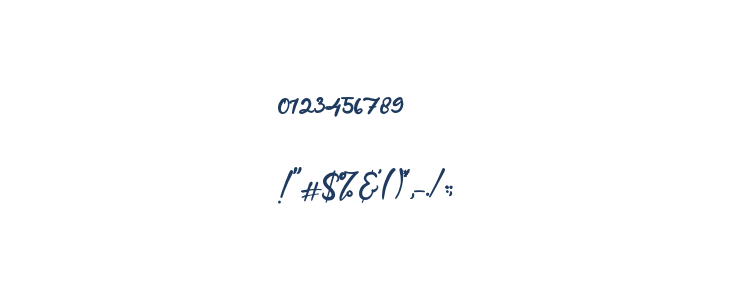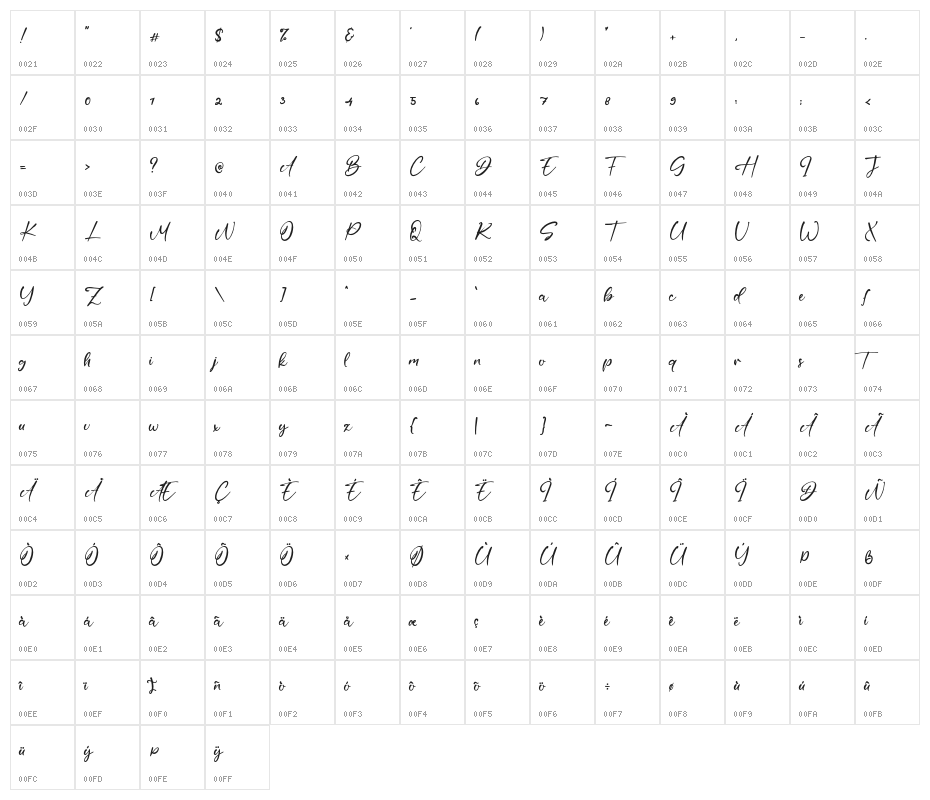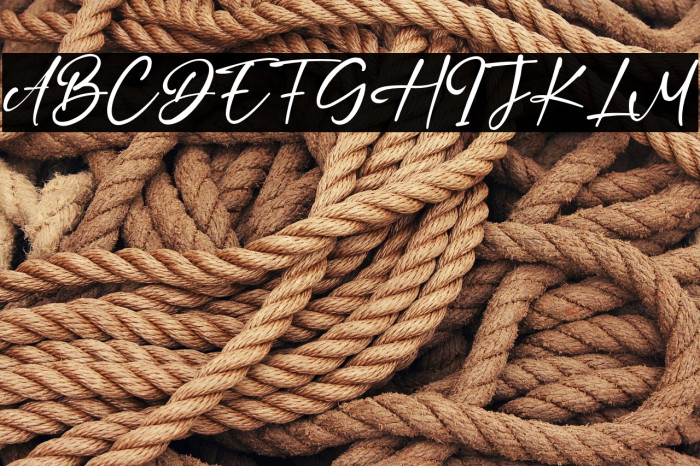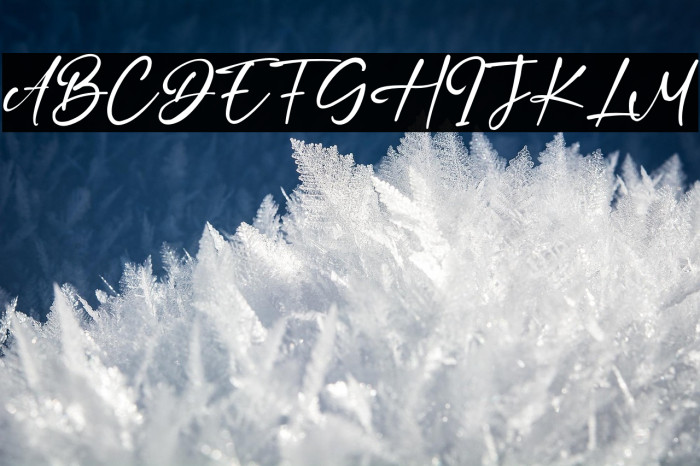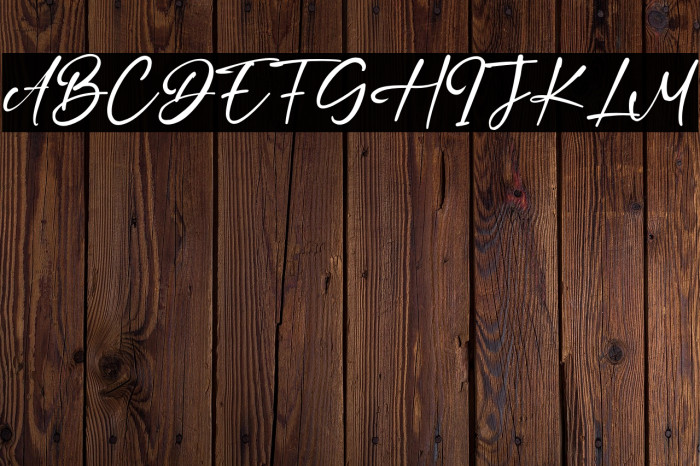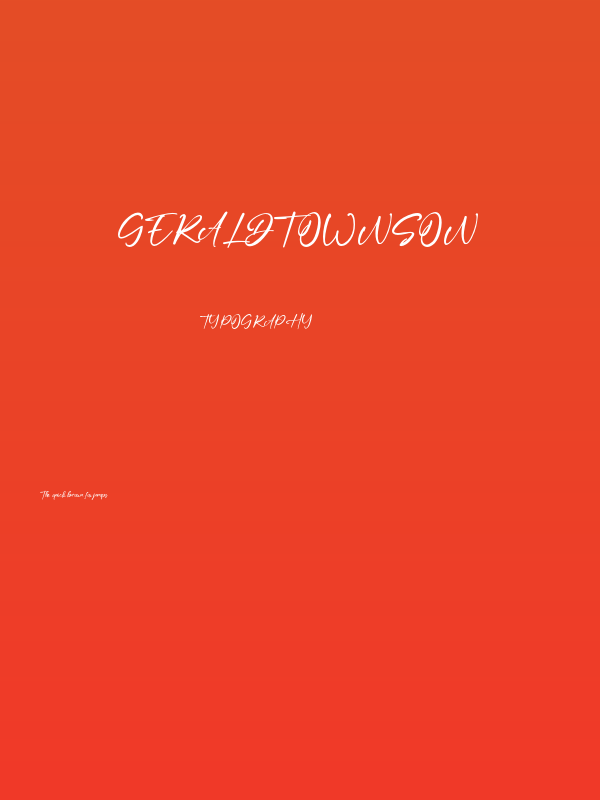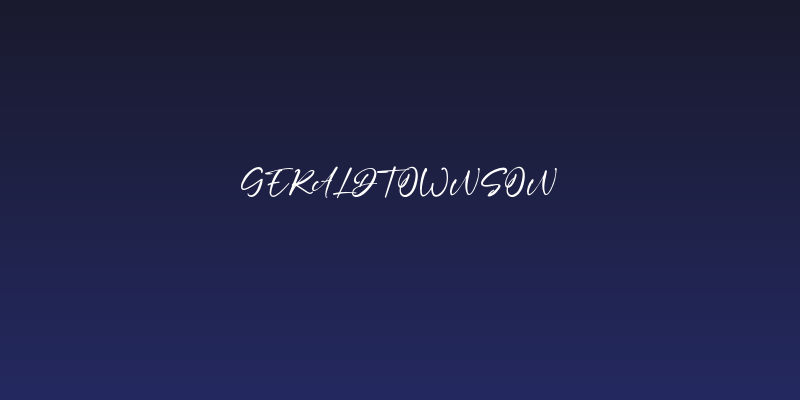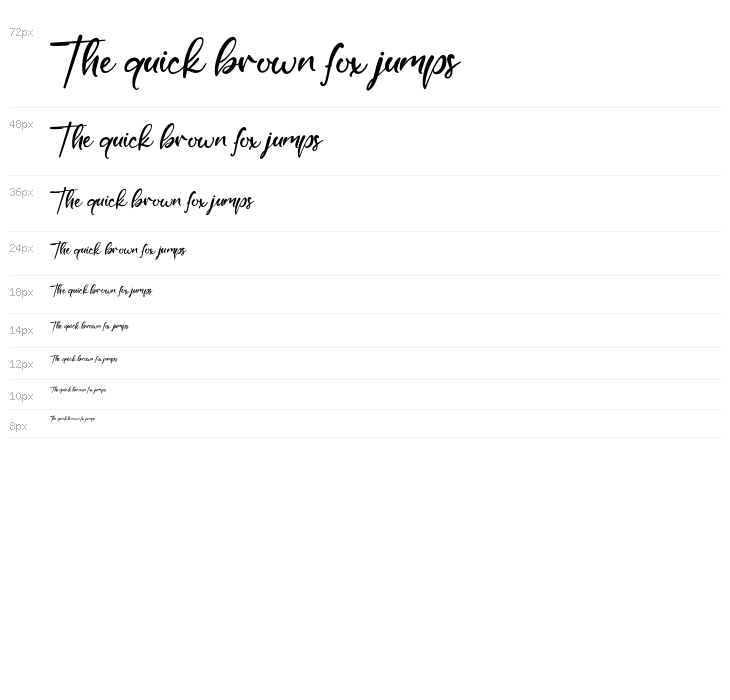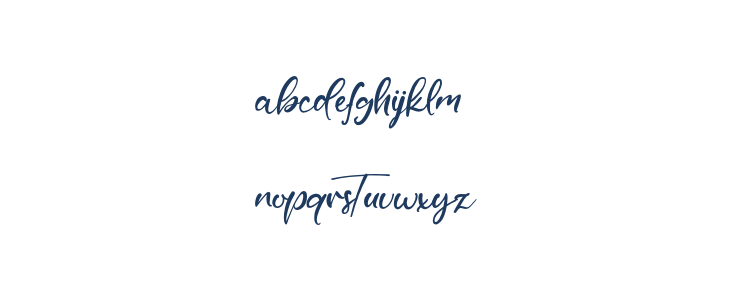
GeraldTownson Font
GeraldTownson Description
This font features a dynamic and elegant script style with a flowing, cursive appearance. The uppercase letters are tall and slightly slanted, giving a sense of movement and grace. The lowercase letters are more compact, maintaining a consistent rhythm throughout. The numerals are distinct and easy to read, while the special characters complement the overall aesthetic. The strokes vary in thickness, adding a touch of sophistication and flair. This font is perfect for projects that require a personal and artistic touch.